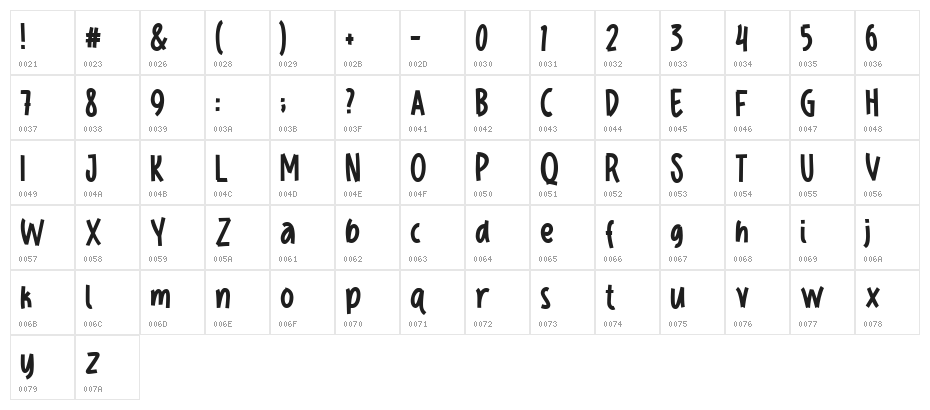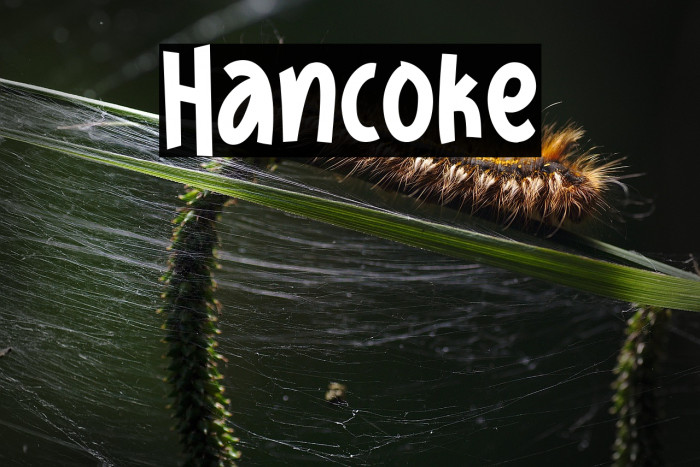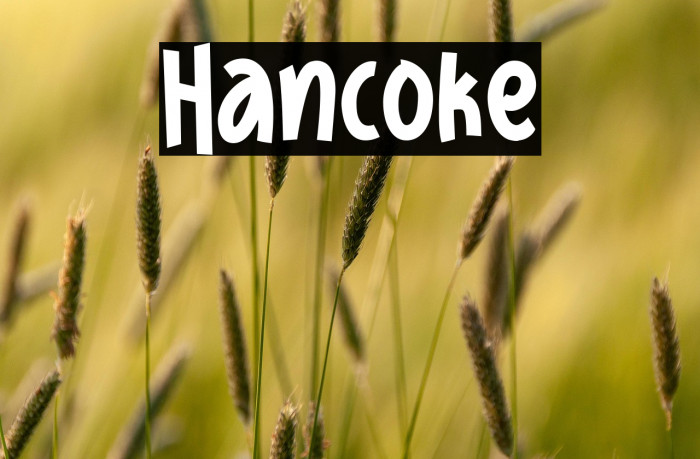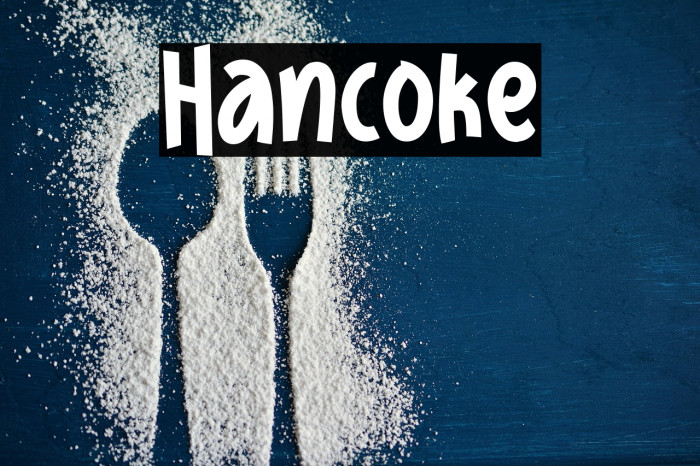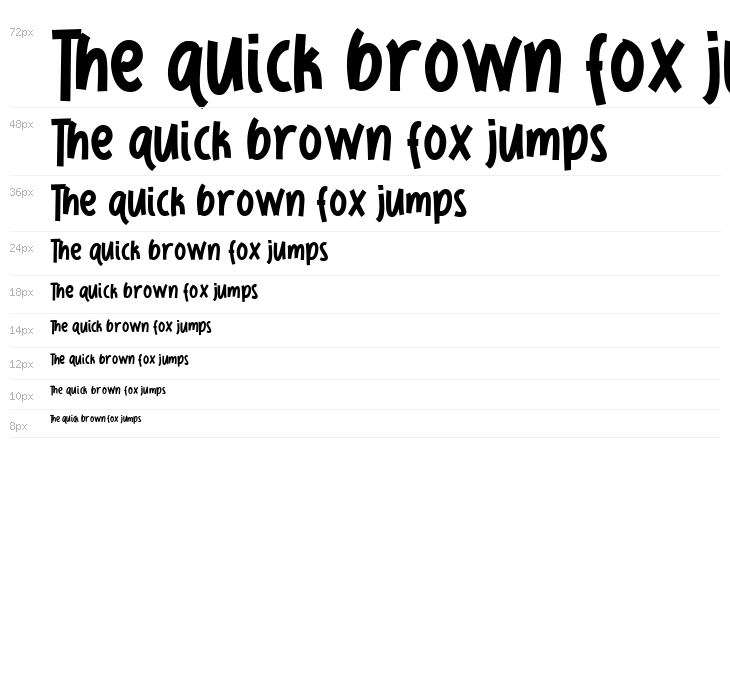
Hancoke Font
Hancoke Description
This font features a playful and bold style with a hand-drawn appearance. The letters are slightly irregular, giving it a whimsical and informal feel. The uppercase characters are tall and slightly narrow, while the lowercase letters maintain a consistent height, adding to the font's quirky charm. The numbers and special characters follow the same playful design, making it suitable for creative and fun projects. The strokes are thick and consistent, providing a strong visual impact. This font is ideal for projects that require a touch of personality and creativity.
| Proposed Projects | Perfect for children's books, posters, greeting cards, and playful branding. |